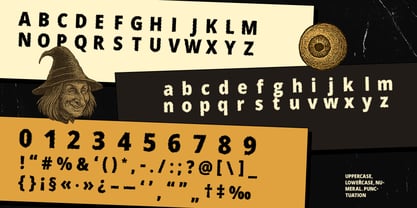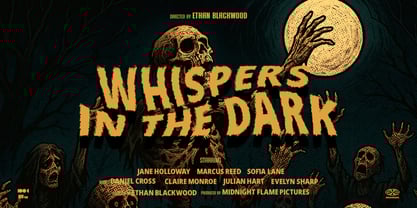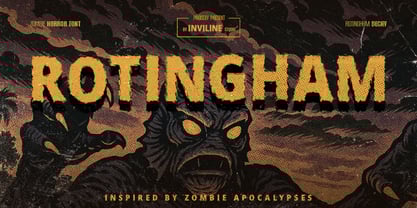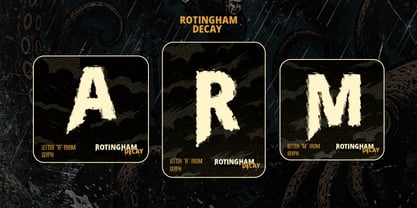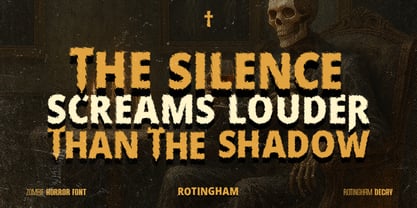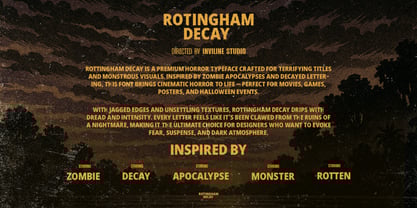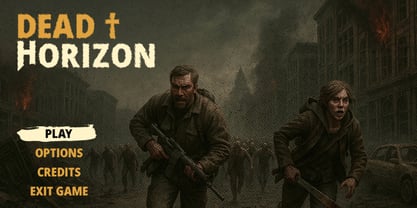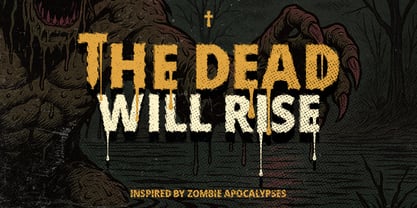
Rottingham Decay
by Inviline
The Rottingham Decay Font Family was designed by Virgiawan Listanto and published by Inviline. Rottingham Decay contains 1 styles.
Rotingham is a striking display font that draws inspiration from the eerie atmosphere of zombie apocalypses. Its raw, crumbling texture and distressed edges evoke a sense of dread and chaos, making it an ideal choice for posters, games, movies, and any project that demands a chilling impact. Crafted with jagged imperfections and gritty details, Rotingham infuses instant fear into any visual design. Whether you're creating Halloween merchandise, retro horror comics, or survival-themed titles, this font establishes the perfect undead tone. The name "Rotingham" resonates with the concept of decay, conjuring vivid images of decomposition and doom. Its grotesque, grungy aesthetic is unapologetically creepy. What You Get: - Uppercase and lowercase letters - Numerals, punctuation, and special symbols - Multilingual support (Latin Extended) - Bonus Decay Alternates Perfect For: - Zombie and apocalyptic movie posters - Horror comic book titles - Grunge and metal band merchandise - Halloween event branding - Retro VHS-style horror visuals - Spooky game titles or streaming covers
Designers: Virgiawan Listanto
Publisher: Inviline
Foundry: Inviline
Design Owner: Inviline